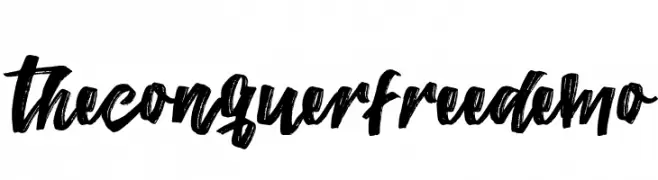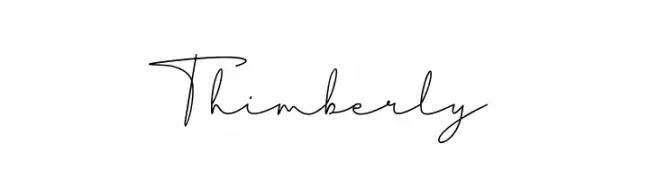
A bold, modern font with a gradient effect and futuristic design.
A bold, italic font with a sporty and modern design.
A bold, geometric outline font with a modern, industrial aesthetic.
A bold, expressive handwritten font with dynamic brush strokes.
A bold, expressive script font with flowing, connected characters.
A bold, brush-style font with dynamic, textured strokes.
A playful, casual handwritten font with smooth, flowing lines.
A bold, flowing script font with elegant curves and decorative flourishes.
A graceful and flowing script font with elegant, continuous strokes.
A bold, elegant script font with flowing, interconnected characters.